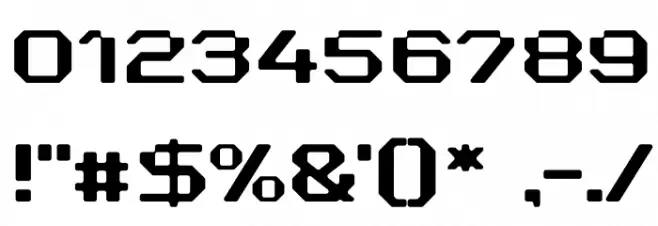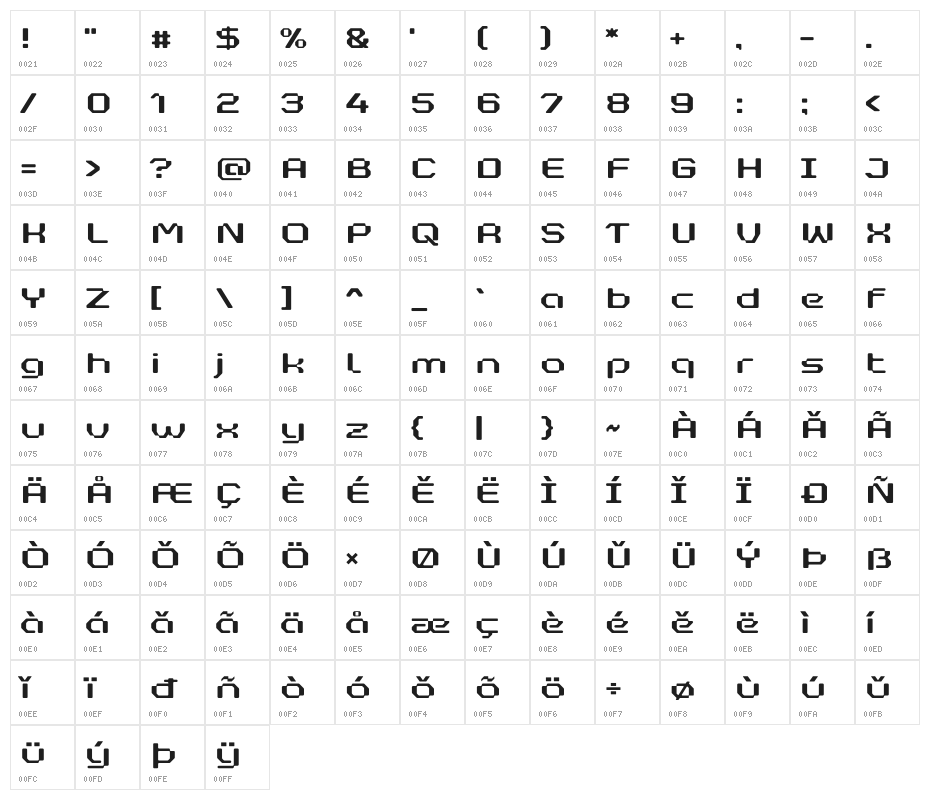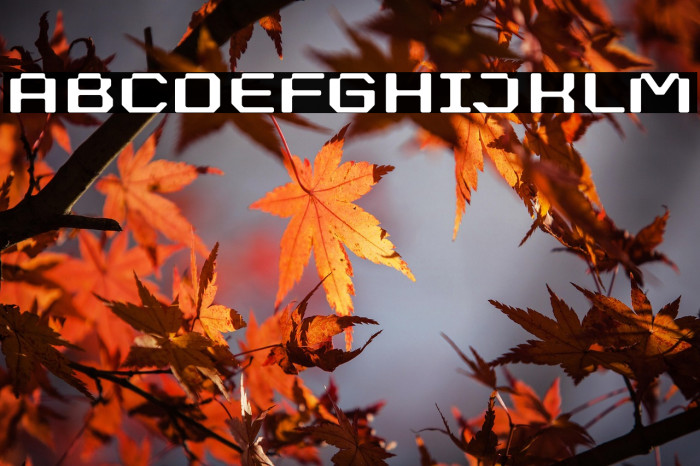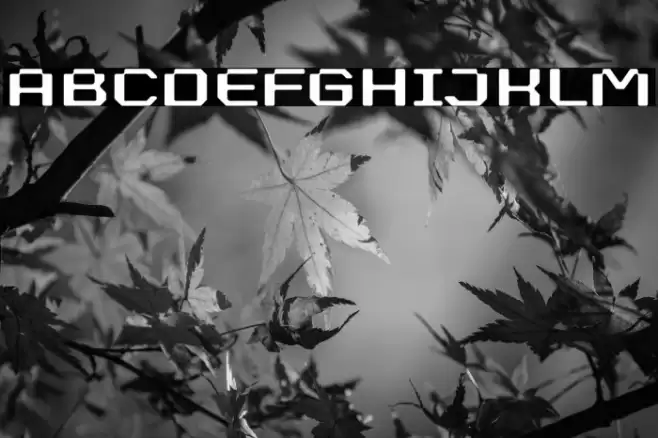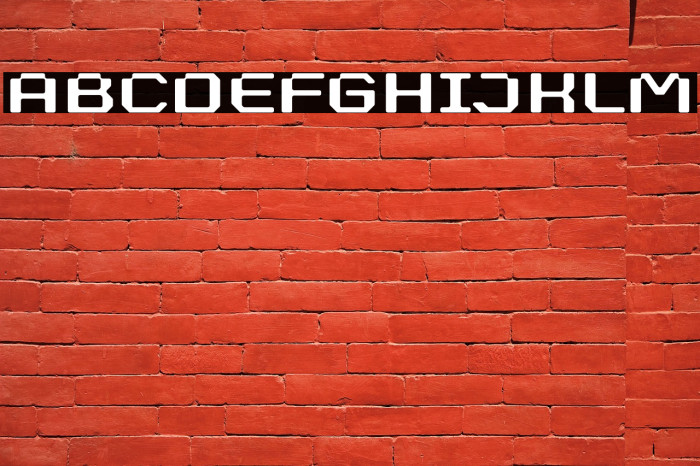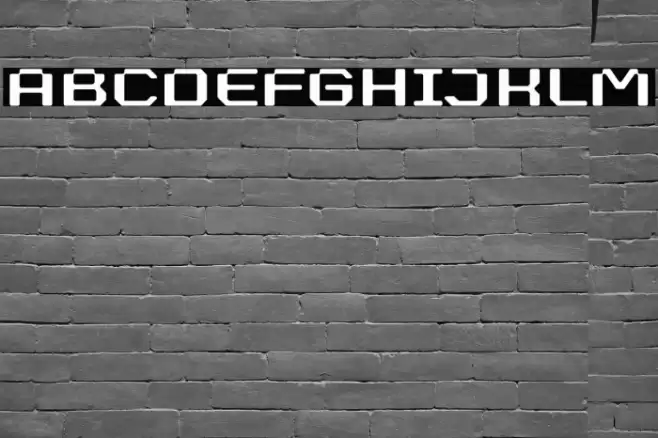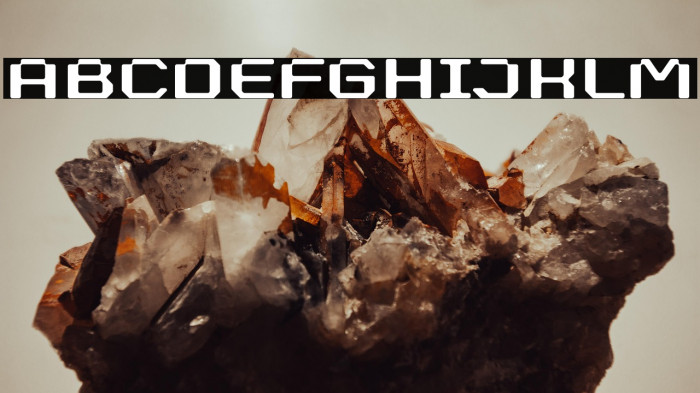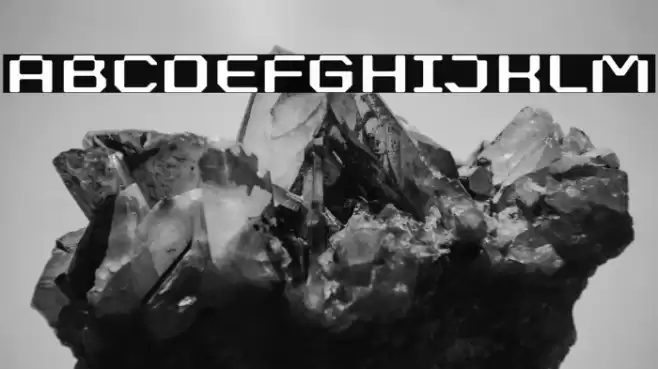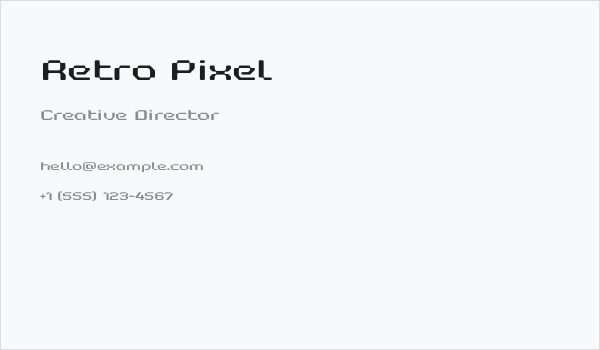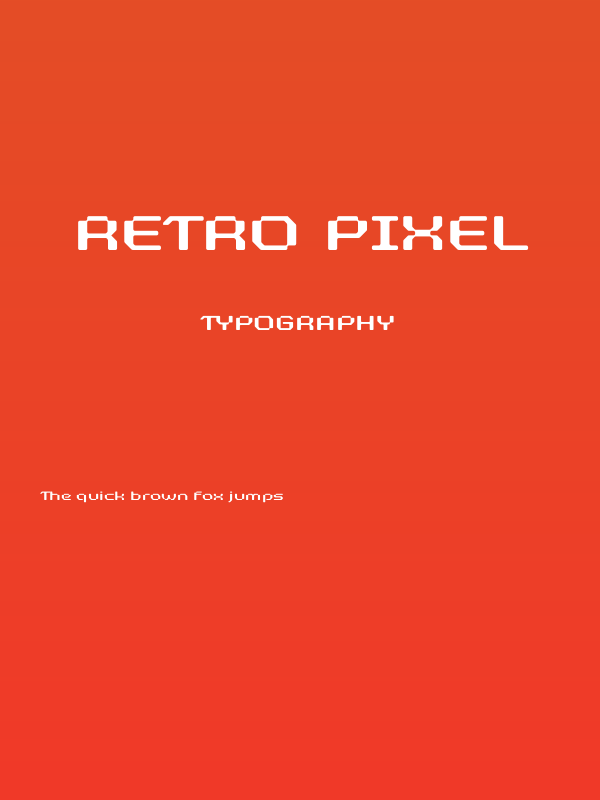
Retro Pixel Font
Retro Pixel Description
This font features a distinct retro-pixelated style reminiscent of early digital displays and video games. Each character is constructed with a blocky, geometric design, emphasizing angular lines and sharp corners. The uppercase and lowercase letters maintain a consistent height, contributing to a uniform appearance. The numbers and special characters follow the same pixelated theme, ensuring a cohesive look across all glyphs. This font evokes nostalgia and is ideal for projects that aim to capture the essence of vintage digital aesthetics.
| Use Case | Logos, Headlines, Digital Art |
| Proposed Projects | Ideal for retro-themed video games, digital art projects, and nostalgic branding. |